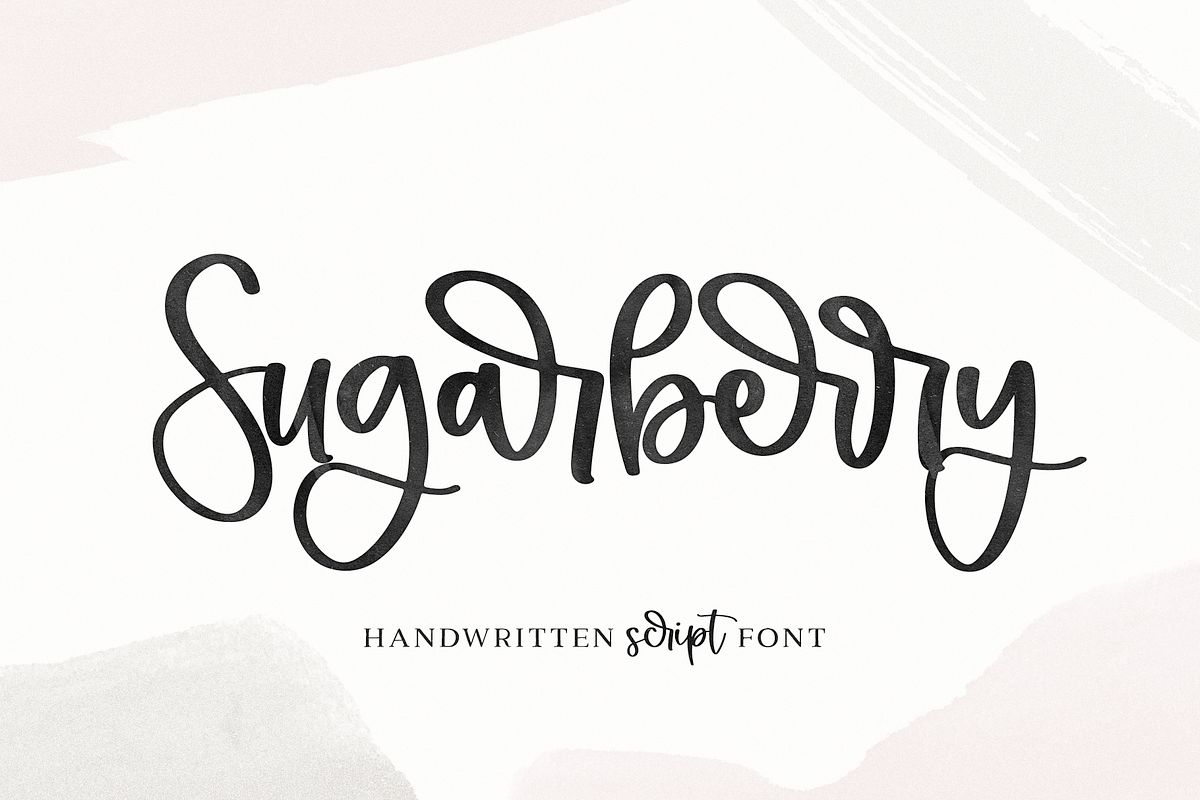
Sugarberry | Handwritten Script Font Free Download
The Sugarberry | Handwritten Script Font Free Download is a charming and elegant handwritten script font that adds a personal, artistic touch to your designs. With its smooth, flowing curves and sophisticated letterforms, this font is perfect for creating logos, invitations, greeting cards, branding materials, and more. The unique handwritten style of Sugarberry offers a blend of elegance and warmth, making it ideal for projects that need a friendly yet refined feel. Whether you're designing for weddings, events, or personal branding, this font will enhance your typography with its natural, handcrafted appeal. Please note, for commercial use, a license purchase is required. However, you can easily download the Sugarberry | Handwritten Script Font Free Download for free for personal use and explore its beauty in your designs. Download the Sugarberry | Handwritten Script Font Free Download today and elevate your projects with a touch of elegance.